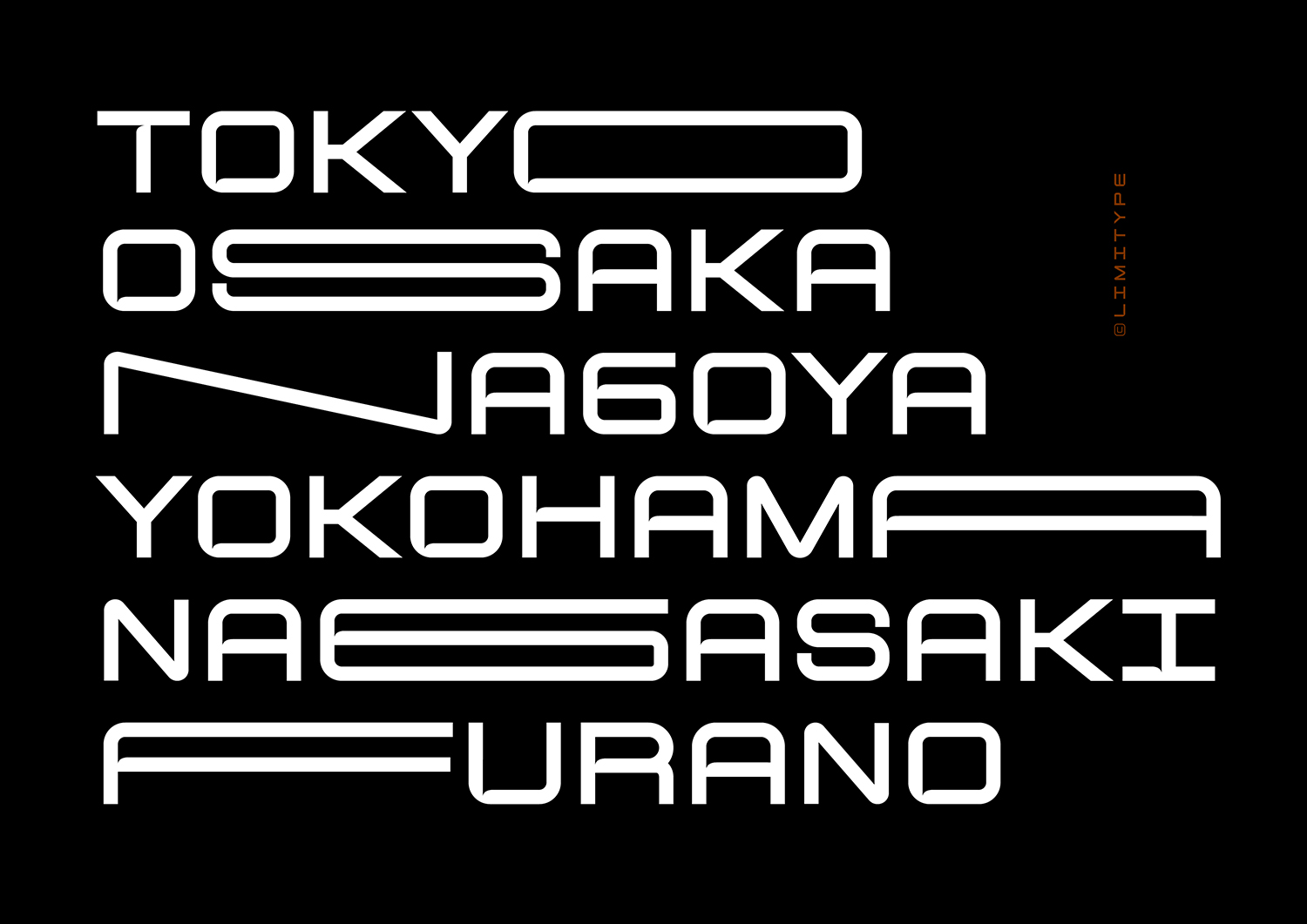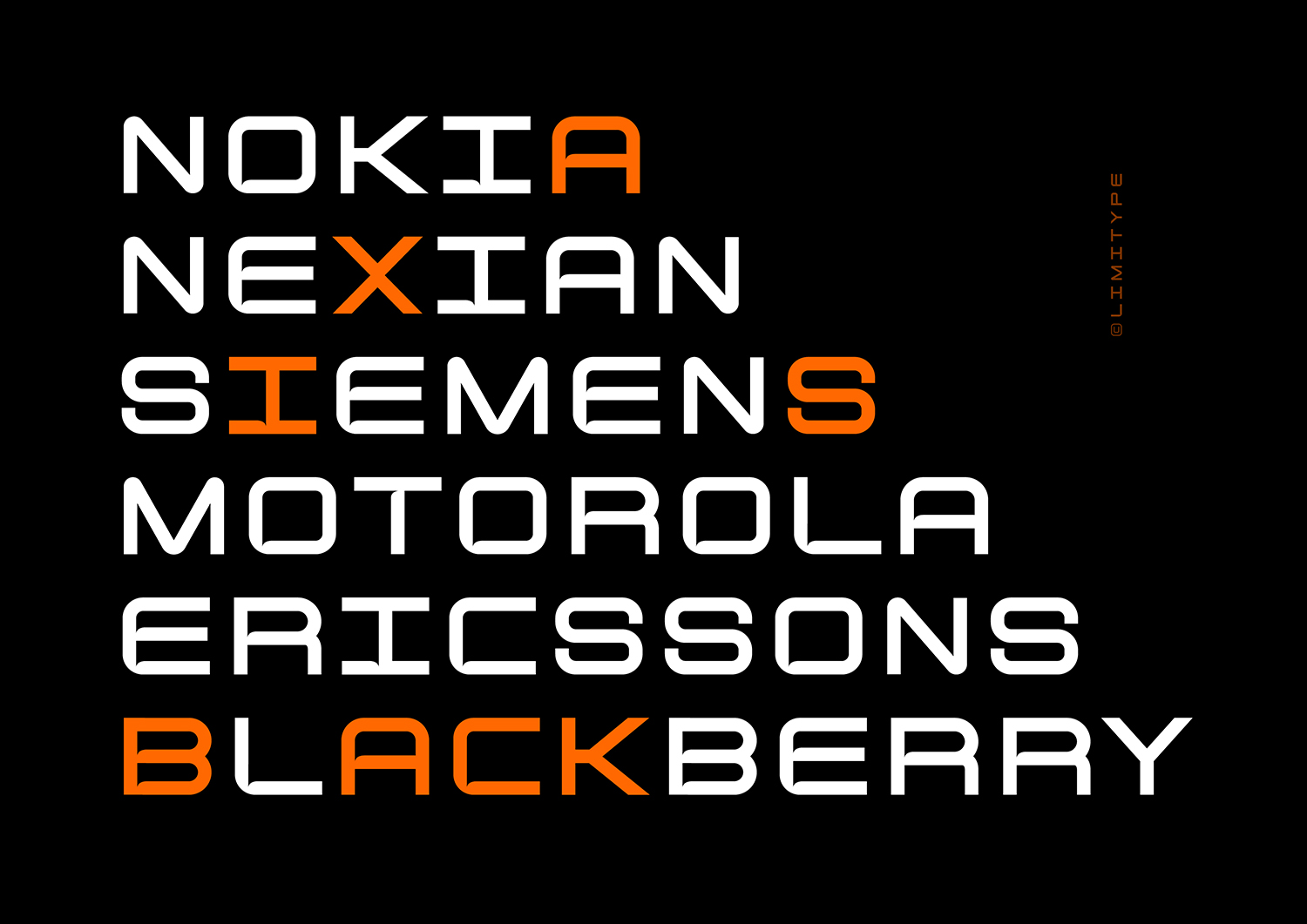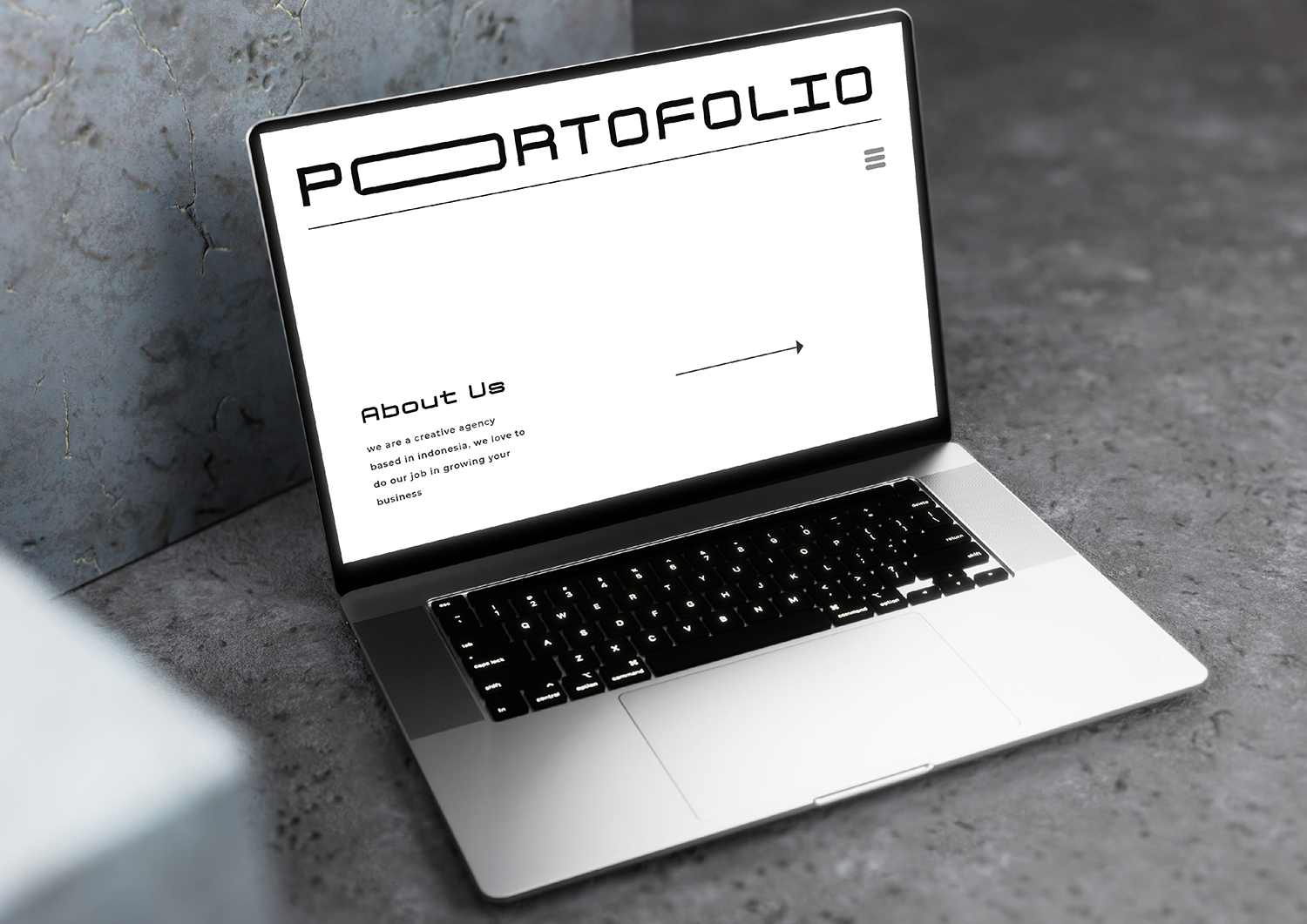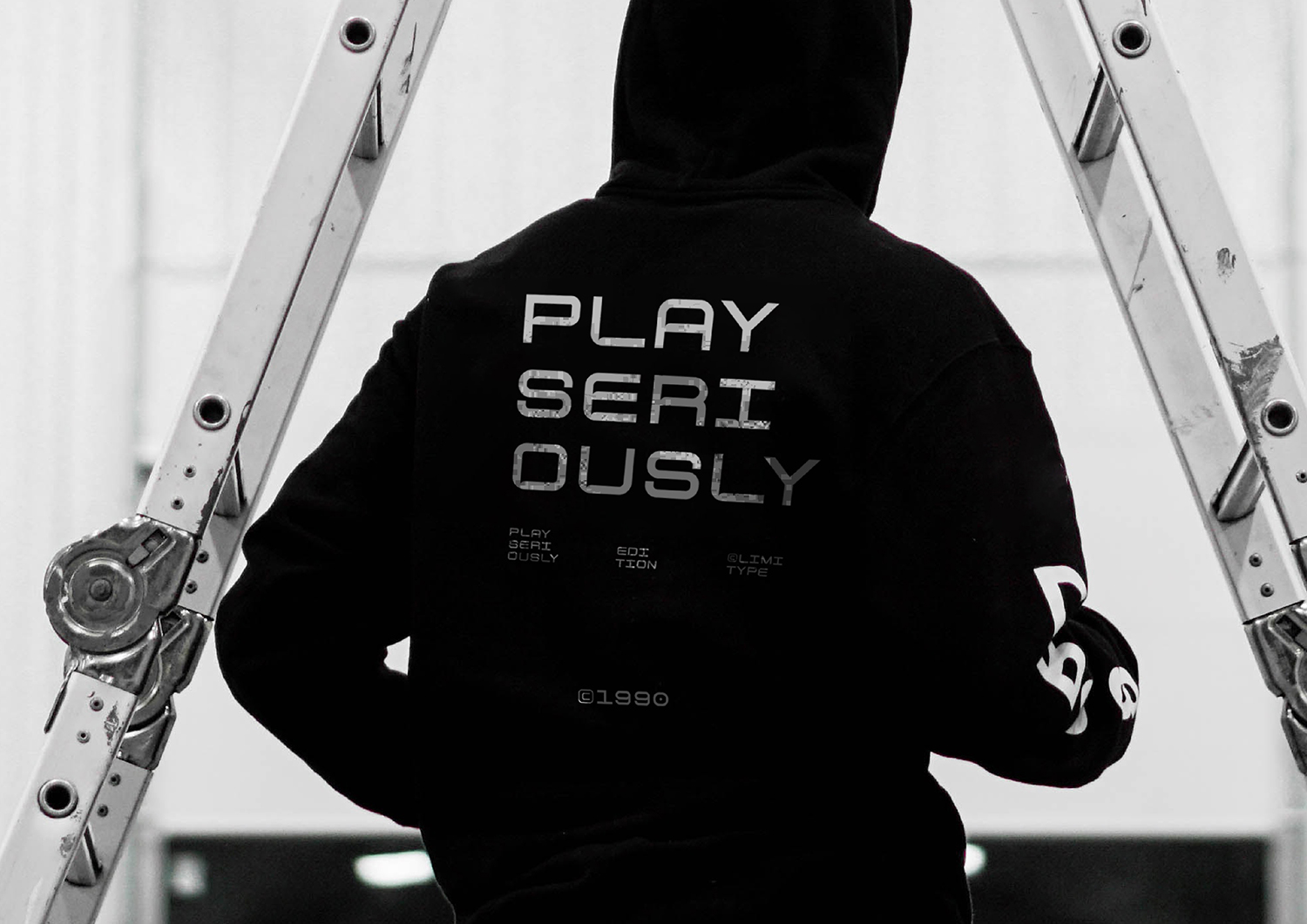
Enfonix Free Font
Enfonix Free Font is a stunningly sleek and sophisticated sans-serif typeface, perfectly suited for contemporary design projects that demand both clarity and character. Its crisp, geometric forms exude a sense of confidence and modernity, while its generous spacing and dynamic letterforms ensure optimal legibility at any size. Whether used for headlines, titles, or body text, Enfonix Free Font is a versatile and eye-catching choice that will elevate any design to the next level.